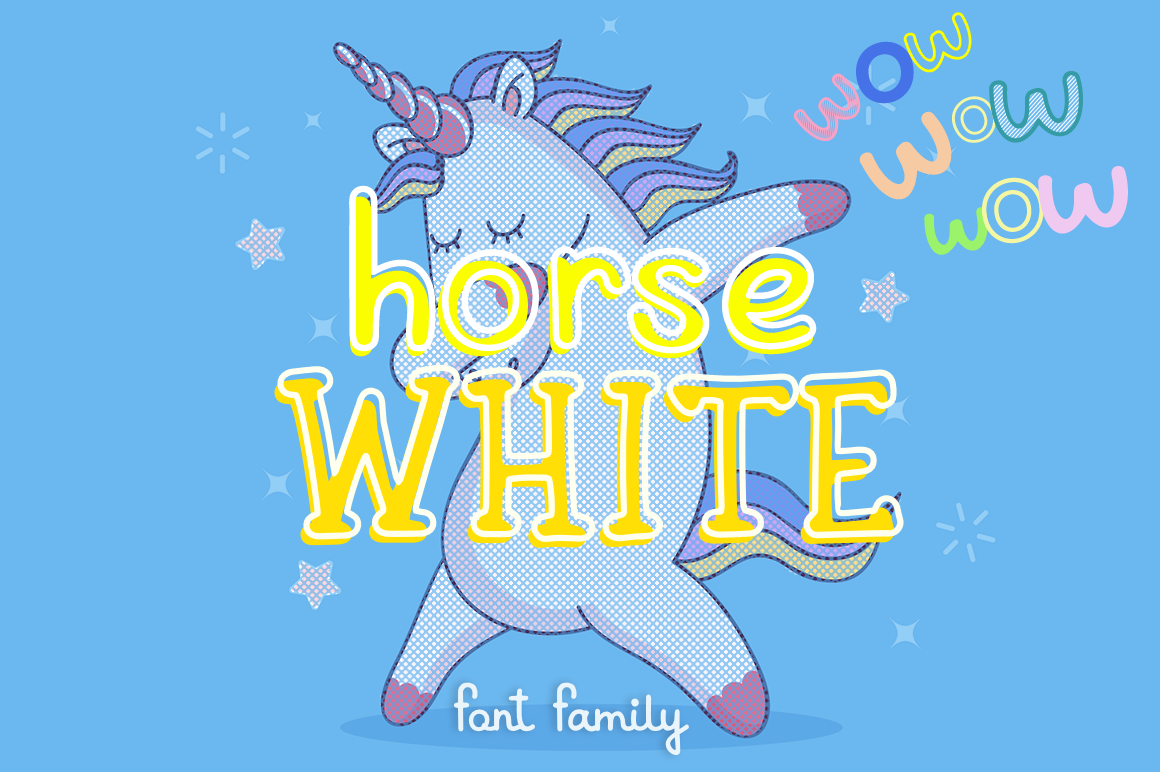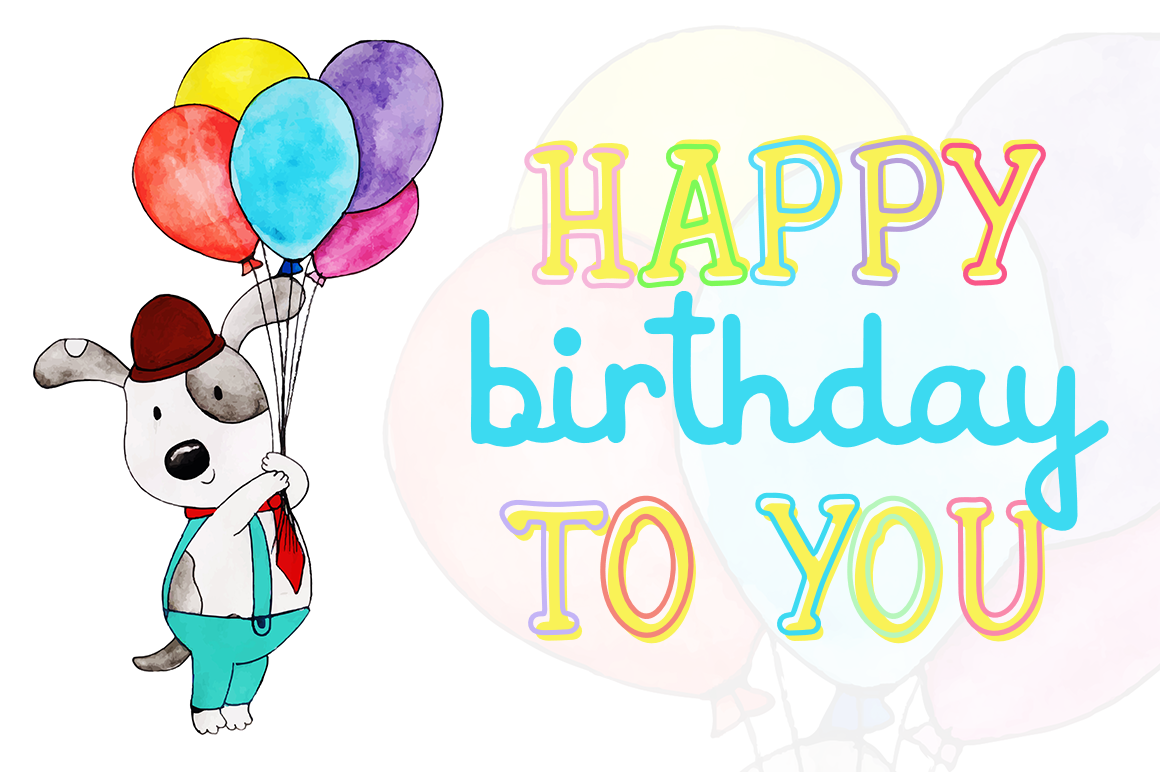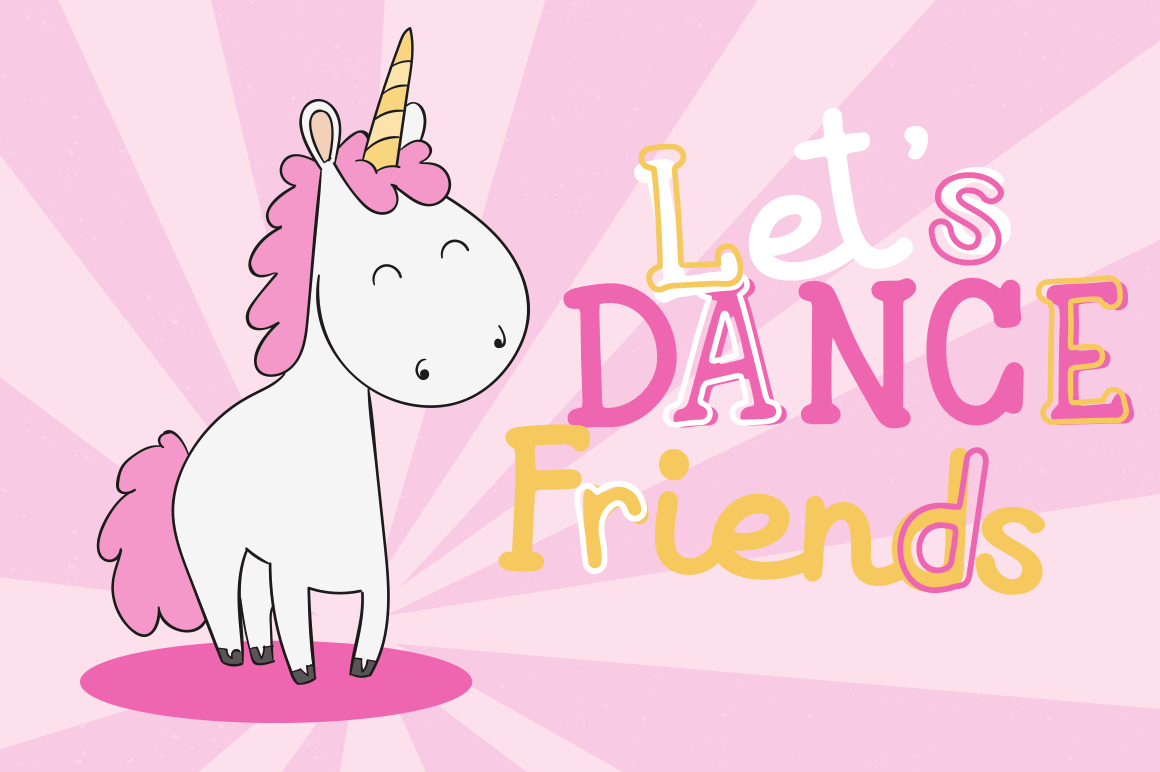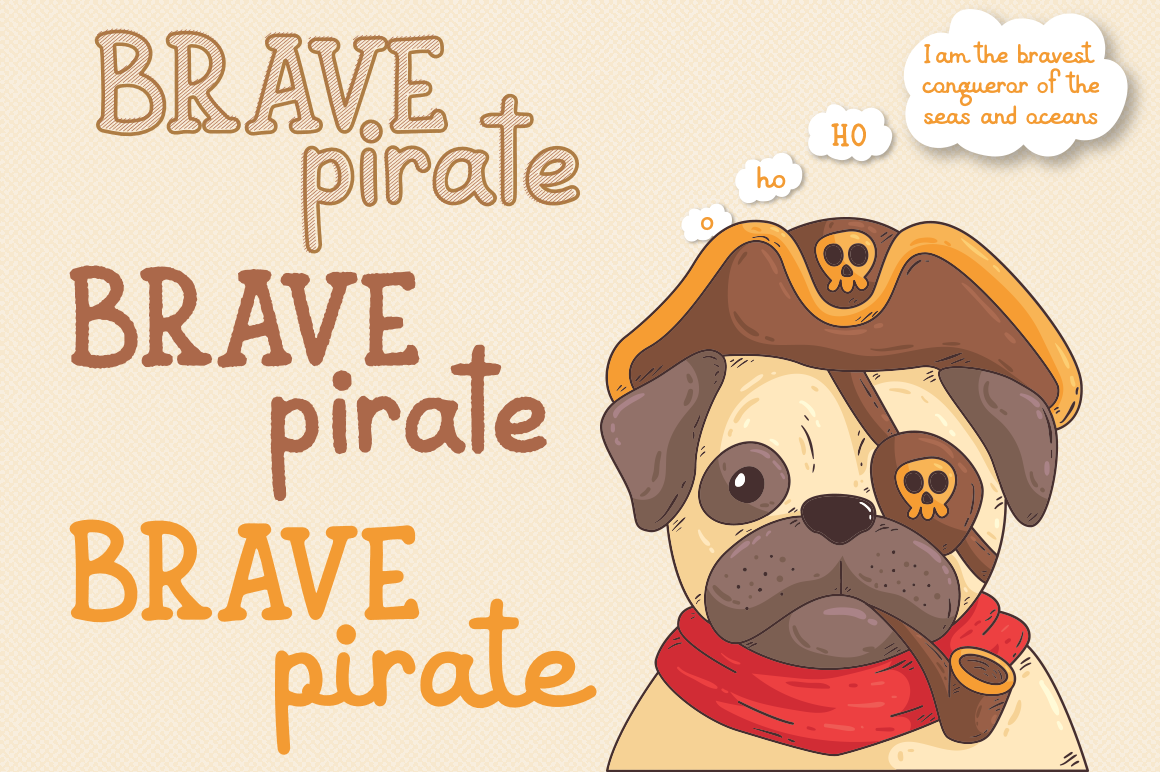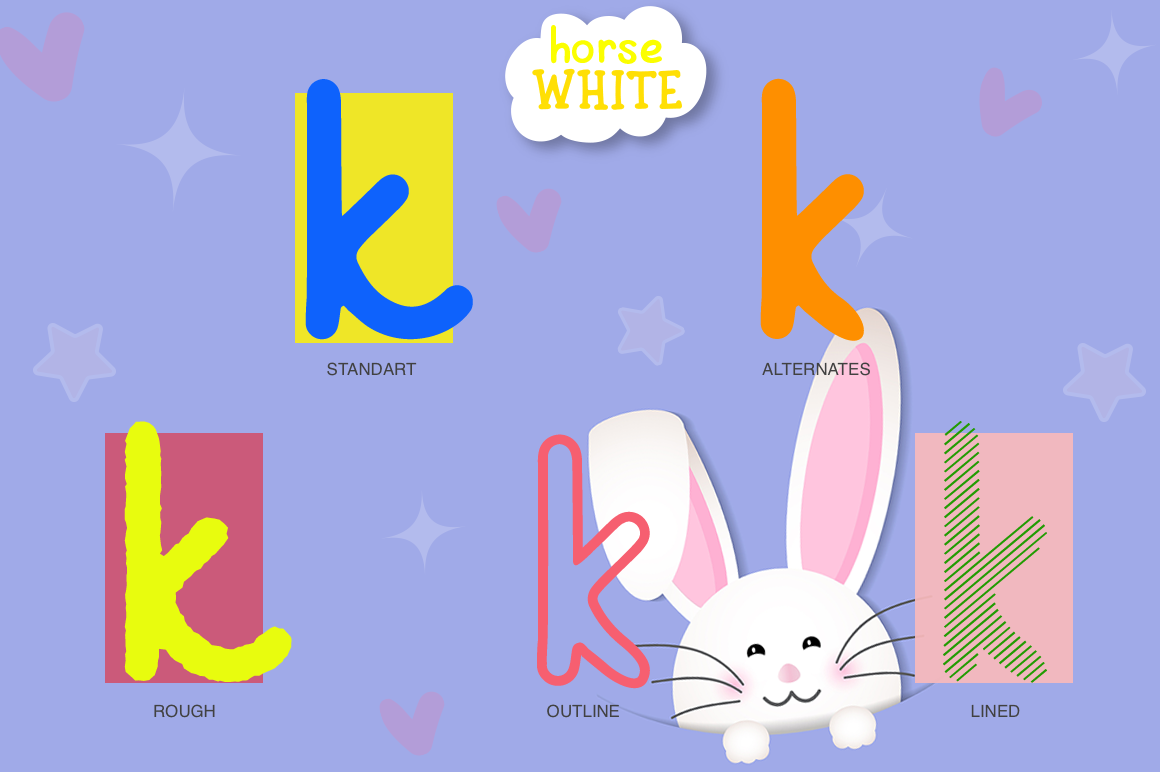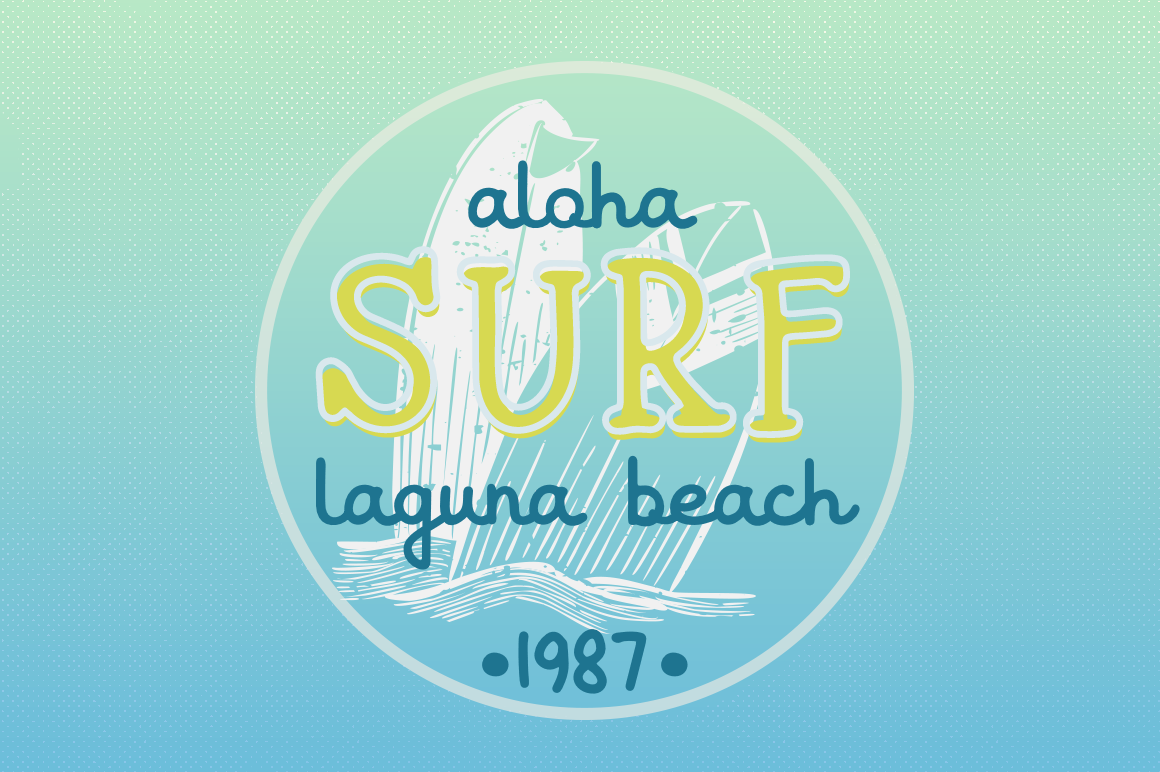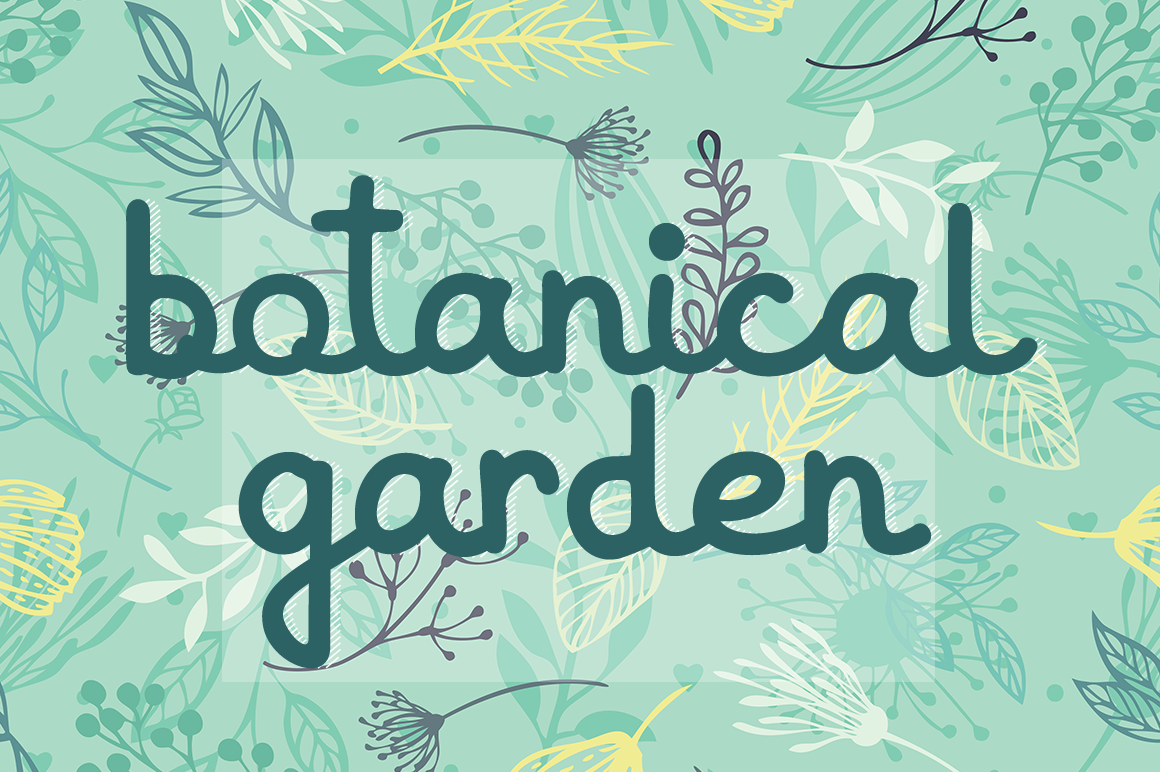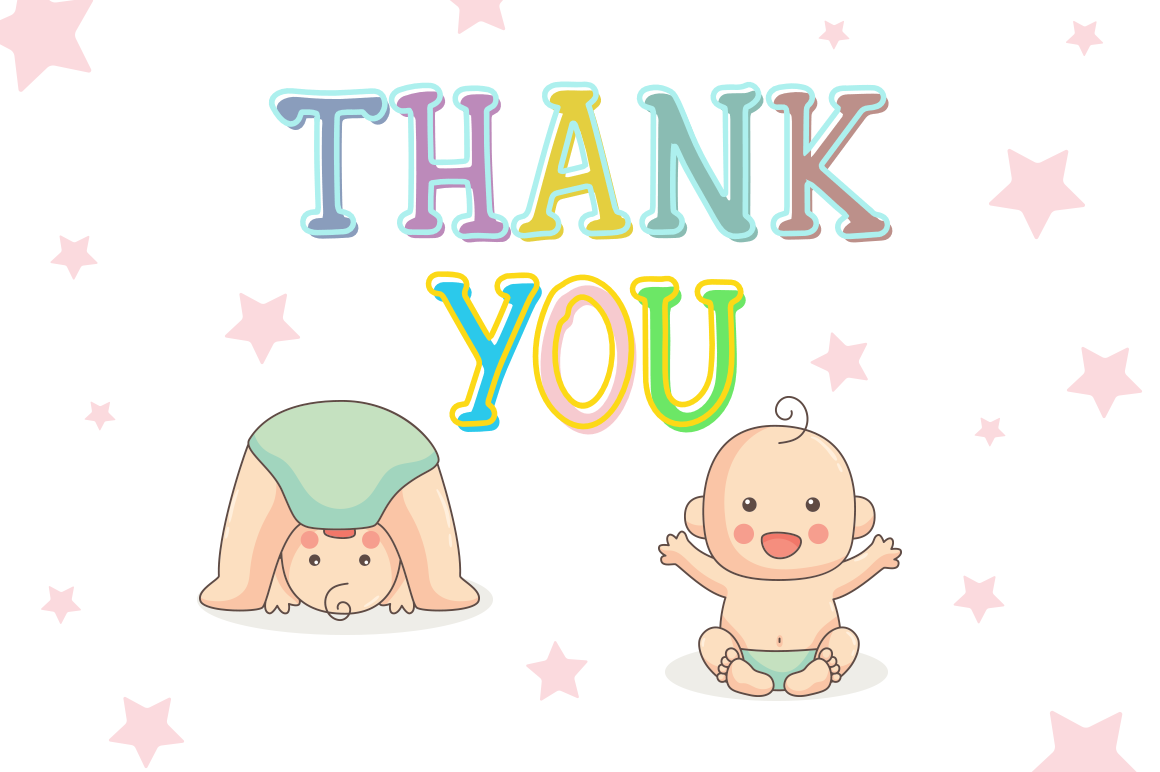
White Horse (4 fonts)
White Horse - this font was created with my daughter who is only four years old and very creative! She has always inspired me, and she took part in the creation of this font, as well as in the choice of preview images. I hope you like it!
This font is ideal for branding and decorating any of your projects and great for use in book covers, stationery, marketing, magazines and more.